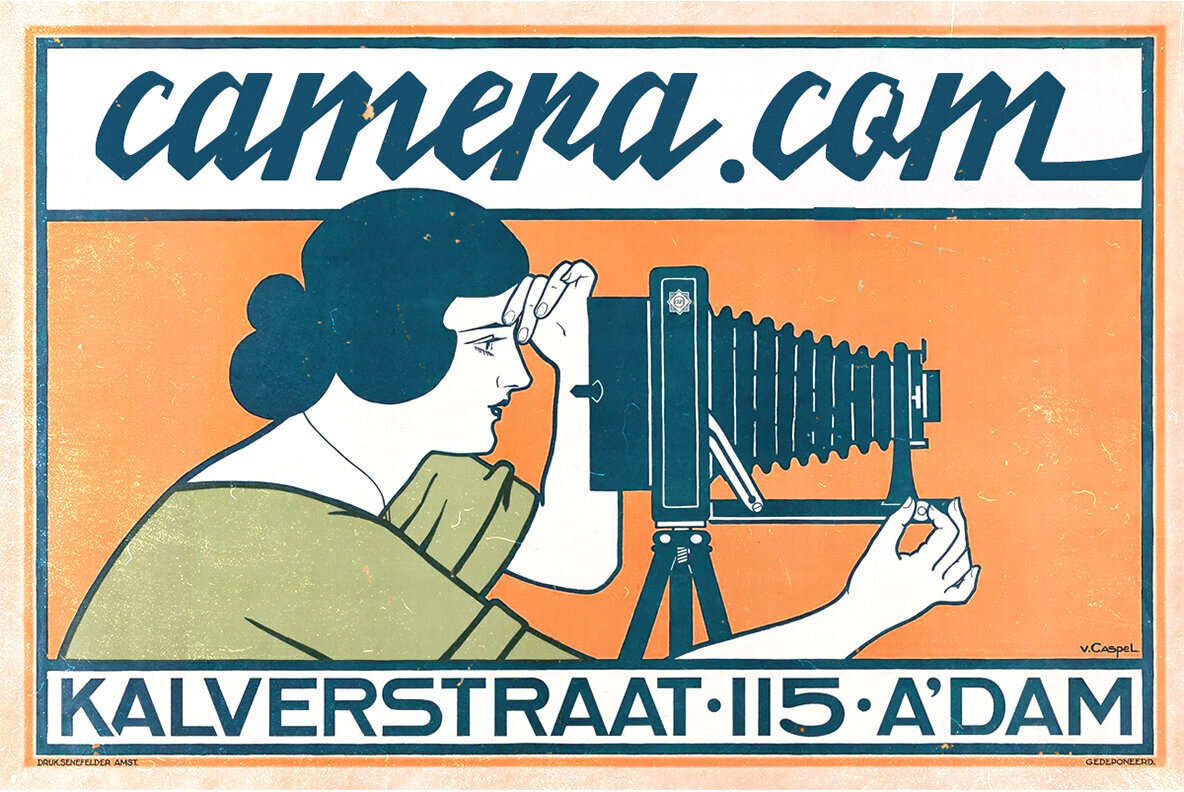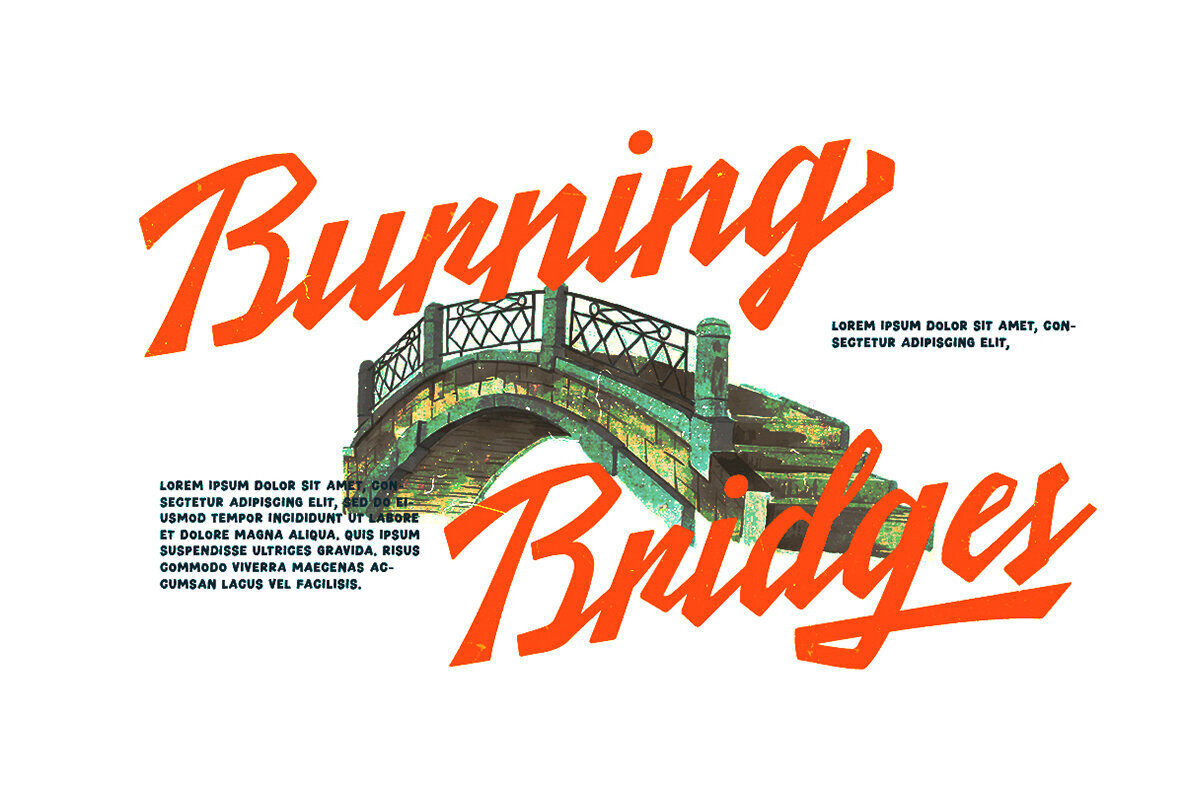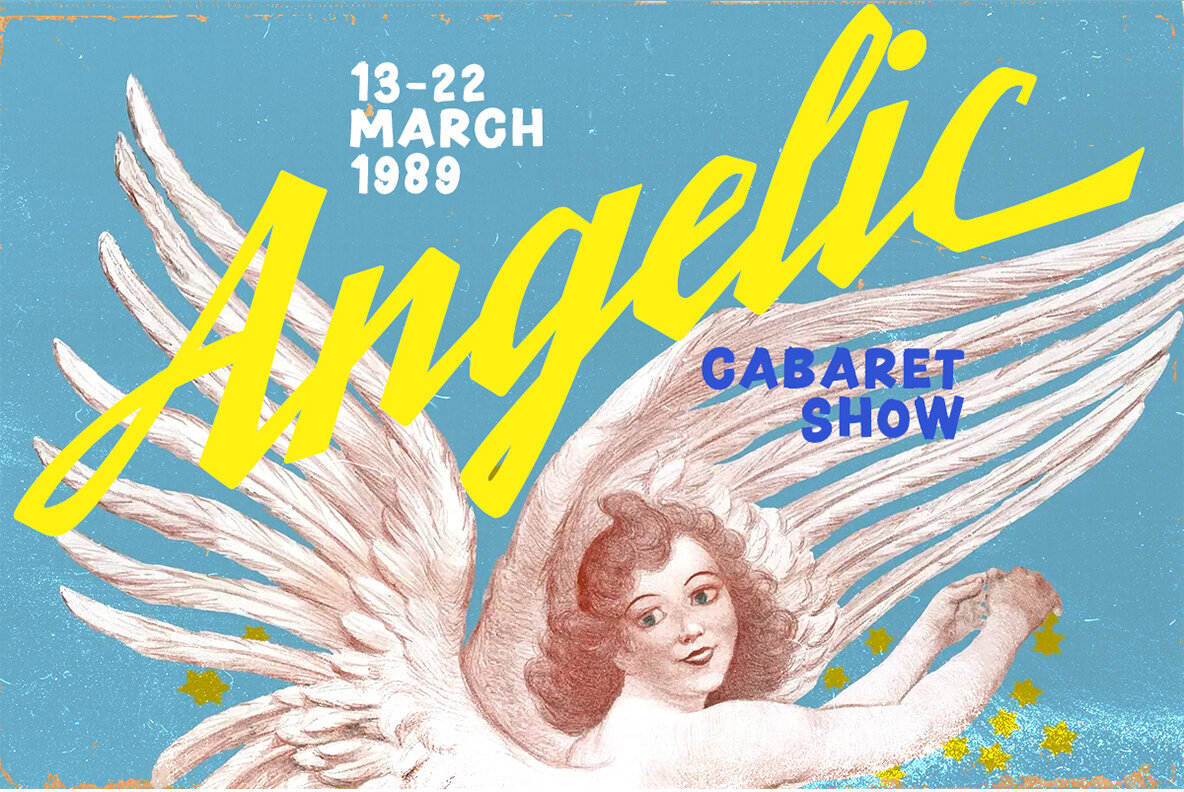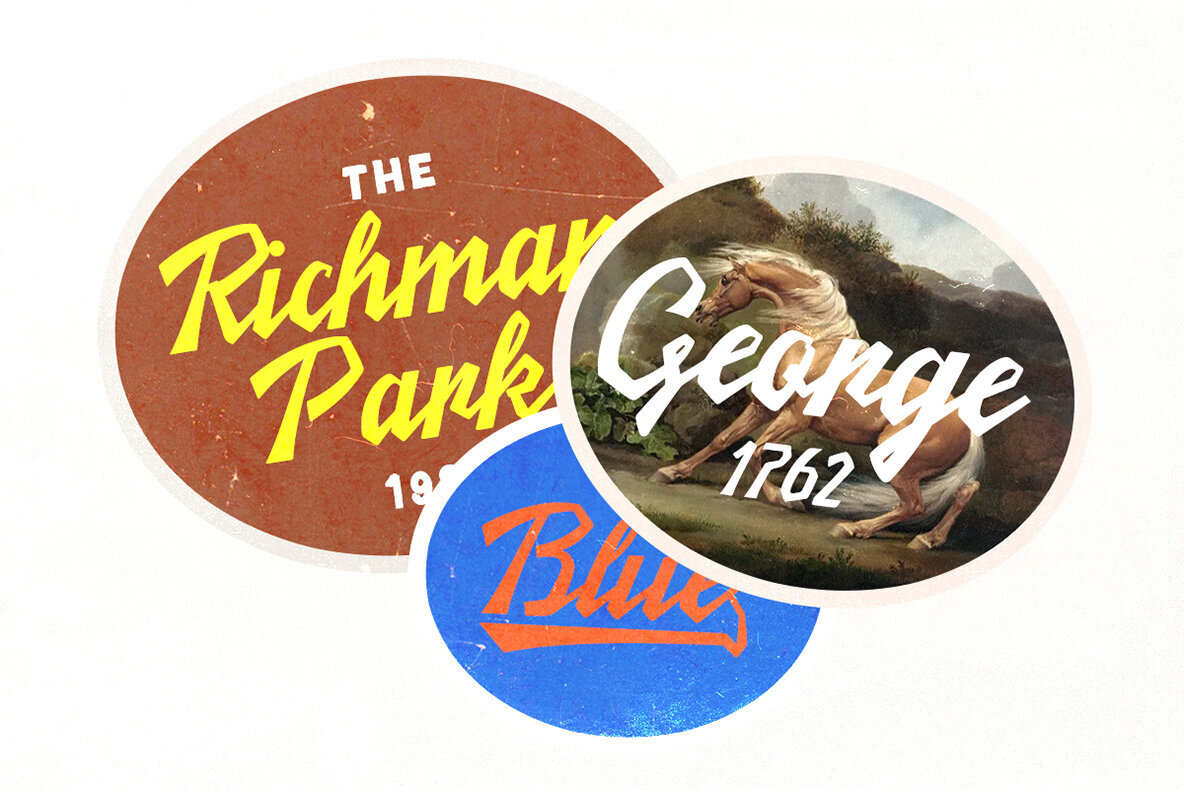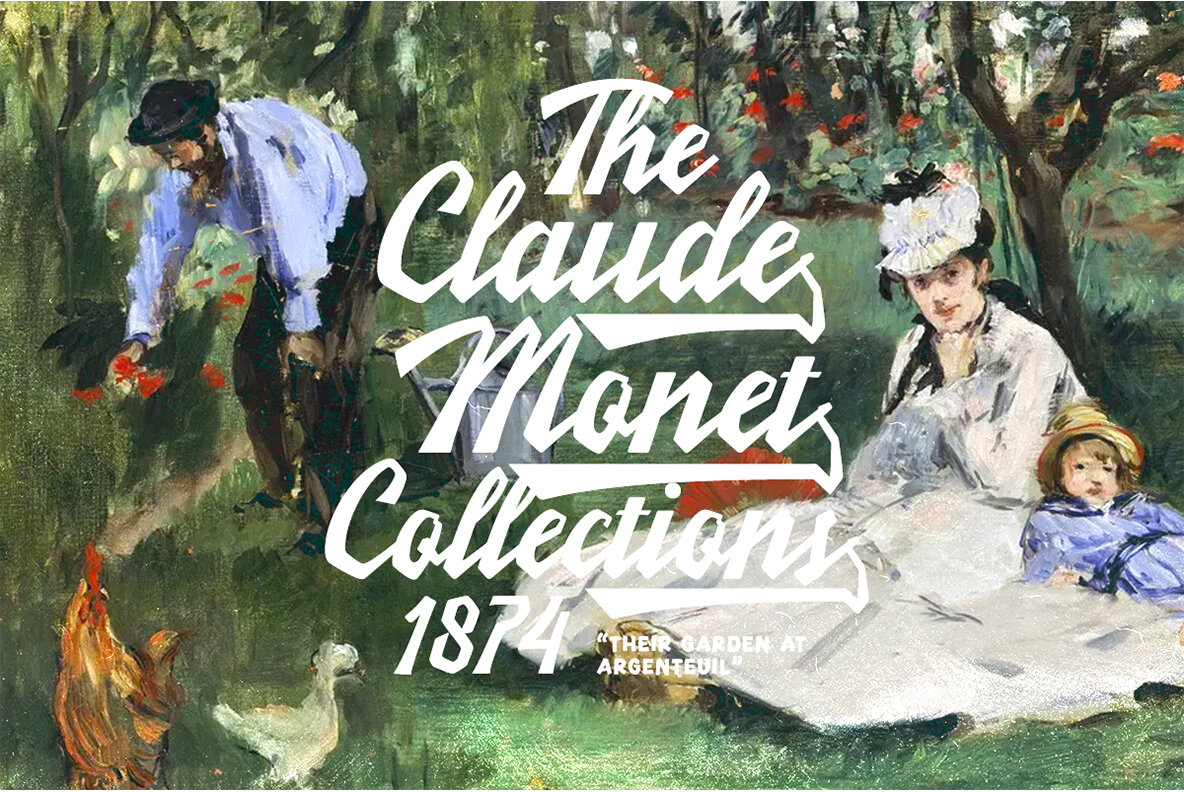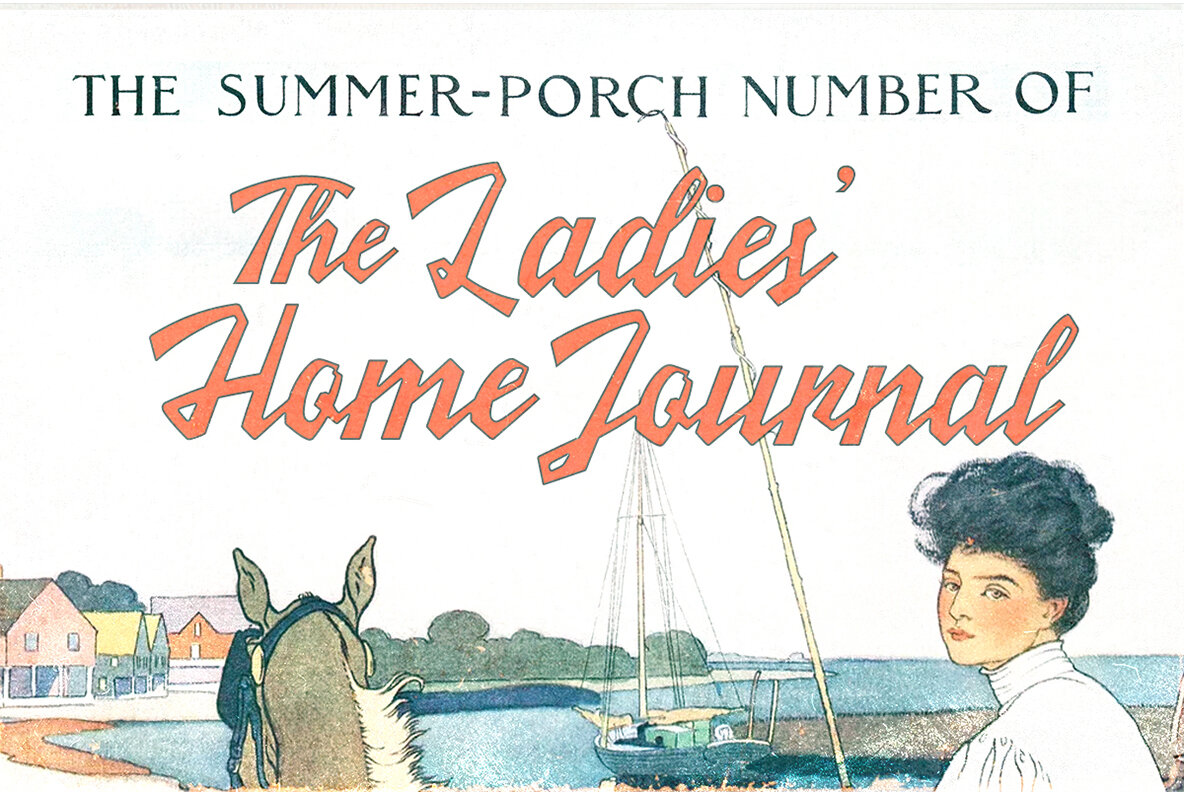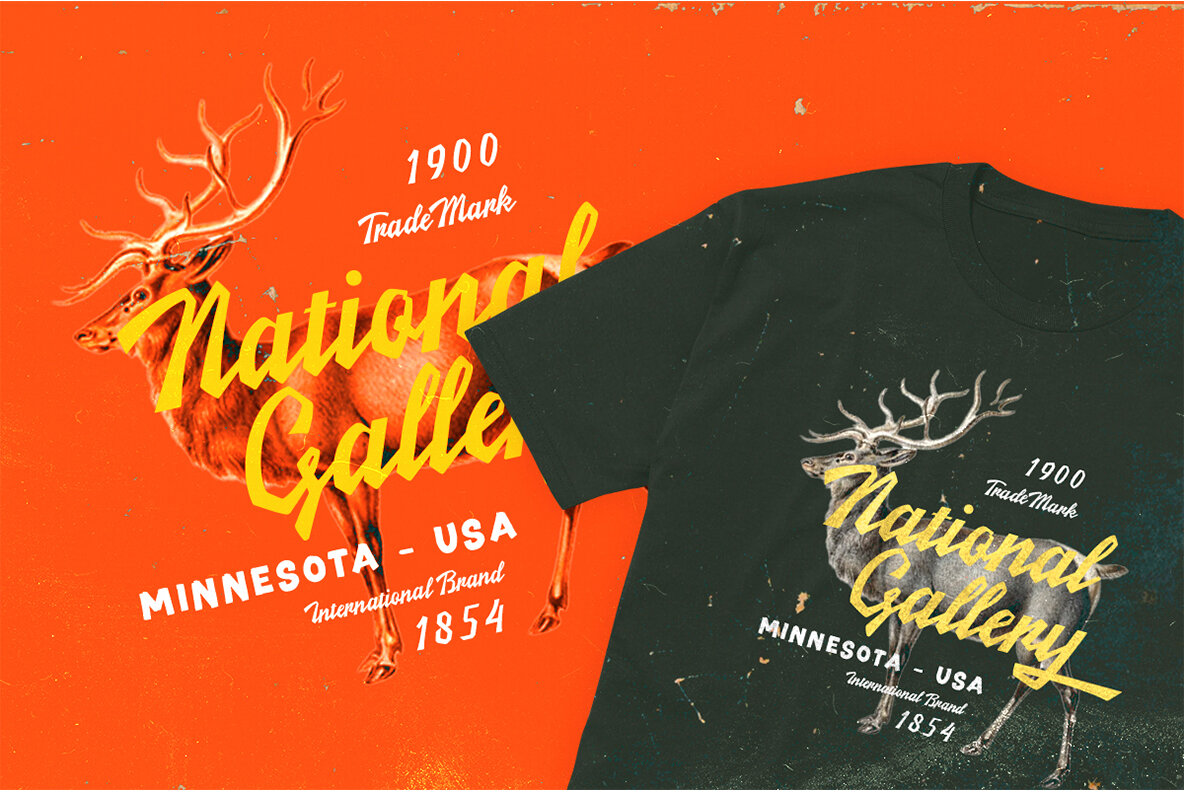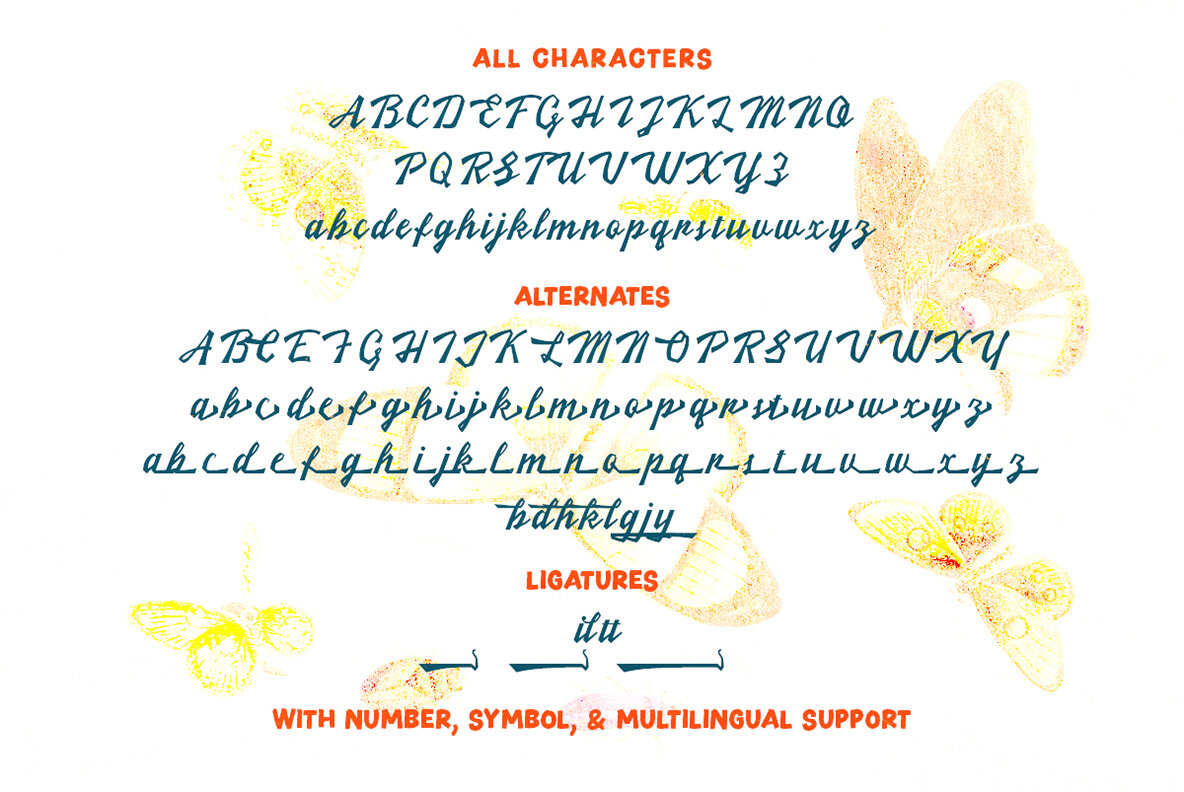
The Dunmile Font
The Dunmile Regular
Embodying both modernity and nostalgia, The Dunmile font by Letterhend Studio offers a captivating script style perfect for a variety of applications. This font seamlessly integrates into logos, headlines, and signage, while also excelling in formal contexts such as invitations, magazines, and packaging. With its versatility and distinctive allure, The Dunmile ensures an impressive visual appeal for fashion, makeup, stationery, and advertising projects.The Dunmile: A Vintage-Inspired Modern Script